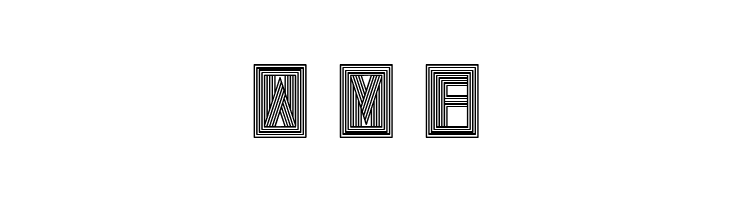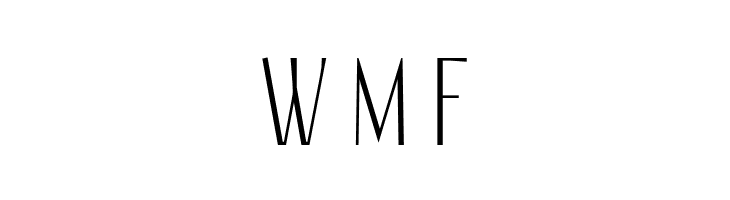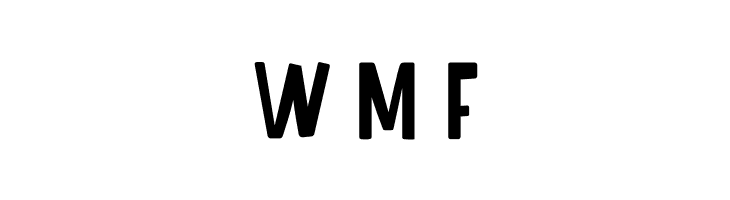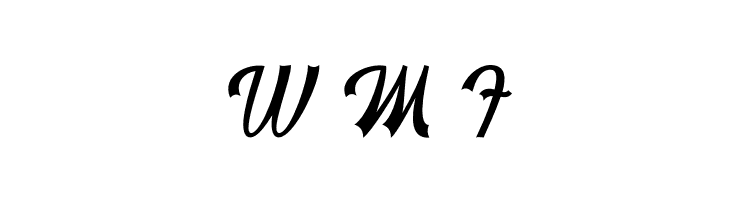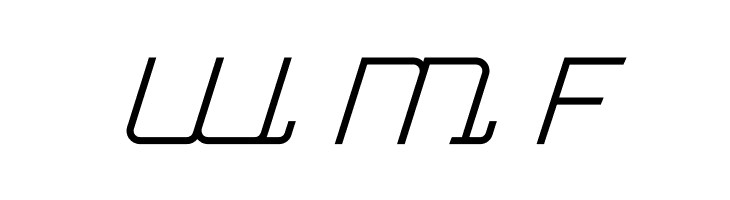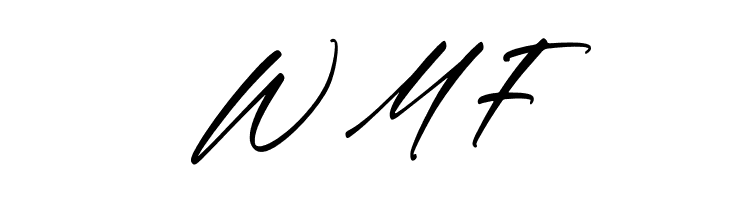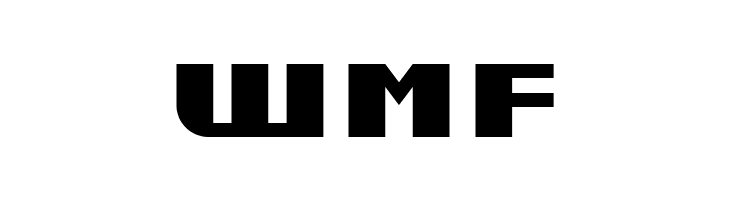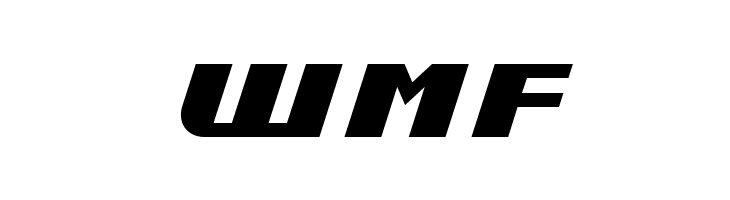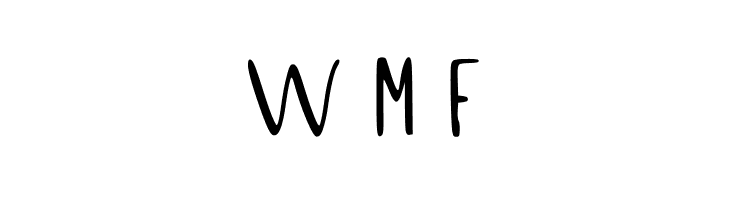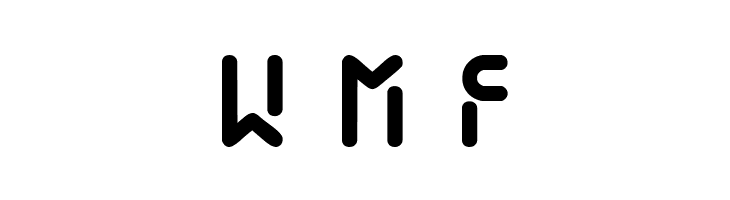
A bold, decorative script font with dramatic flourishes.
A playful, bold font with rounded edges and a hand-drawn appearance.
A playful, handwritten-style font with elongated, irregular characters and dynamic strokes.
A bold, angular font with a Gothic-inspired, modern design.
A bold, geometric font with a modern, digital aesthetic.
A bold, geometric font with a modern and impactful design.
A modern, narrow sans-serif font with clean lines and a sleek appearance.
A modern, sleek font with tall, narrow characters and a sophisticated style.
A bold, 3D decorative font with intricate line patterns and a geometric style.
A decorative, geometric font with layered, framed characters.
An ornate and decorative font with intricate swirls and flourishes.
A playful, hand-drawn font with quirky, expressive characters.
A bold, geometric font with rounded edges and a modern, futuristic style.
A modern, geometric font with angular lines and a futuristic style.
A fluid and elegant script font with natural handwriting style.
A dynamic, cursive script font with bold, fluid strokes and elegant slant.
A bold, italicized font with a dynamic and modern style.
A bold, geometric font with a modern and impactful design.